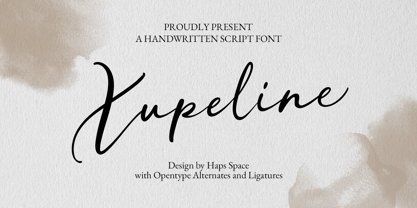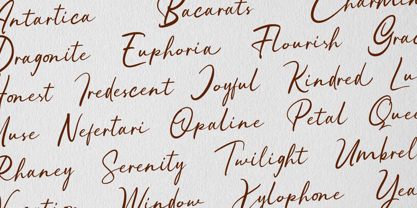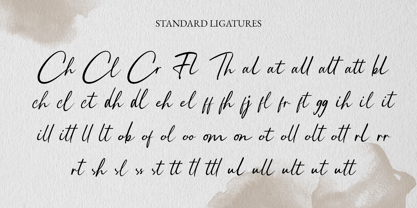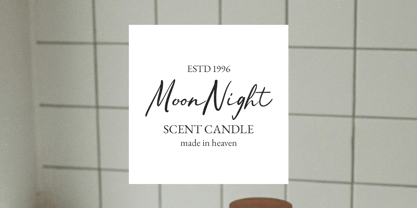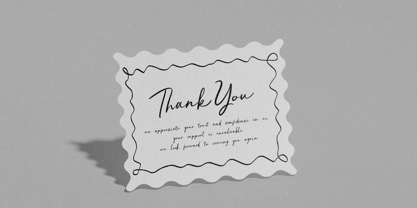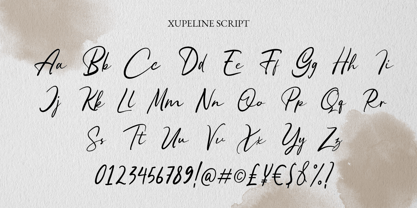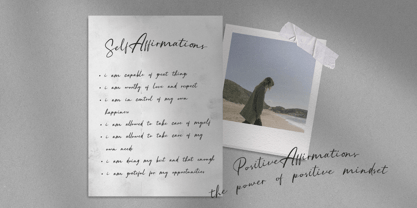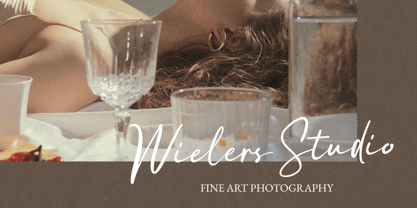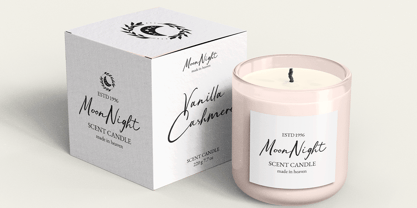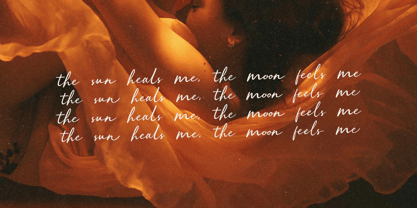
Xupeline Script
by Haps Space
The Xupeline Script Font Family was designed by Haris Purnama Putra, Egi Ahmad Mufid and published by Haps Space. Xupeline Script contains 1 styles. More about this family
The Xupeline font is an elegantly crafted handwritten script. It embodies a delicate and fluid aesthetic, characterized by graceful curves and a natural, authentic handwritten appeal. This font is enriched with OpenType features, including stylistic alternates and ligatures, which allow for enhanced typographic versatility and a more organic, interconnected flow between characters. Xupeline is ideally suited for projects requiring a personal, sophisticated, and artistic touch, such as branding, invitations, stationery, editorial design, and social media graphics. It's inherent charm and refined expressiveness lend themselves to creating impactful and memorable visual communications.
Designers: Haris Purnama Putra, Egi Ahmad Mufid
Foundry: Haps Space